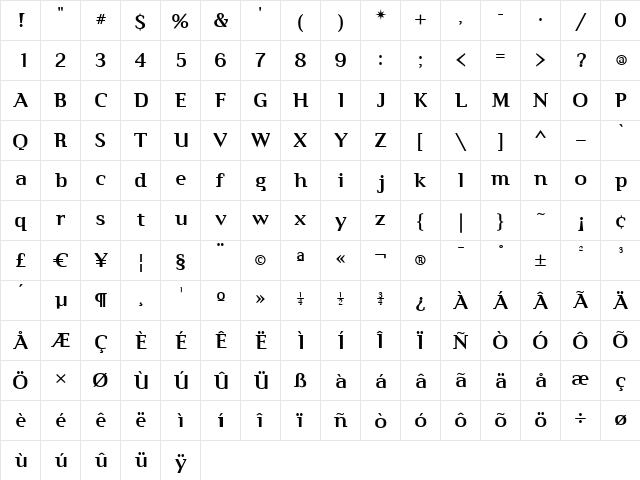
Metamorphosis Bold
Design Context for Metamorphosis Typeface
Metamorphosis takes a measured approach to typography — its balanced proportions and neutral character make it a reliable workhorse for both digital and print work. The heavy weight commands attention and anchors typographic hierarchies.